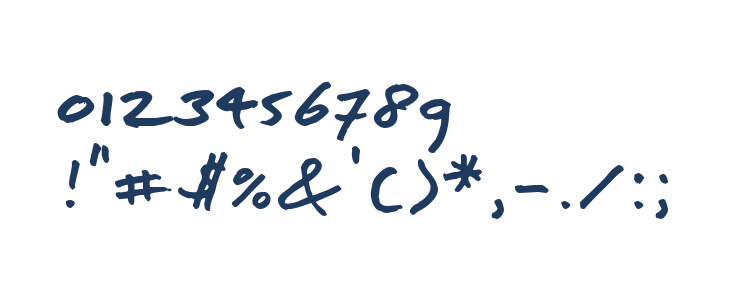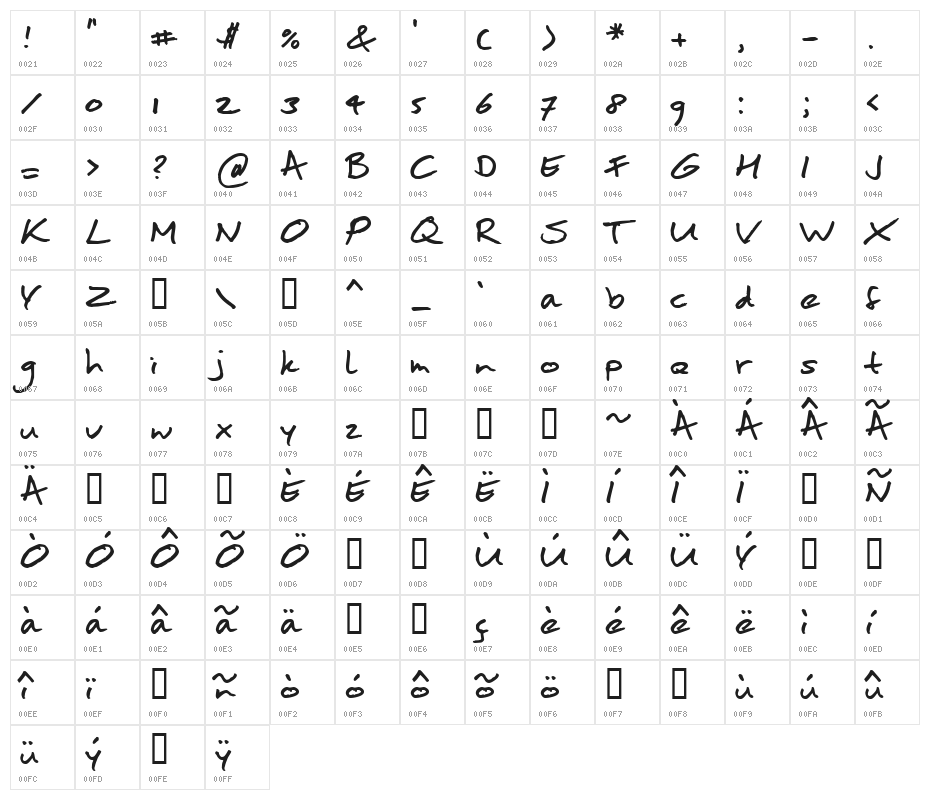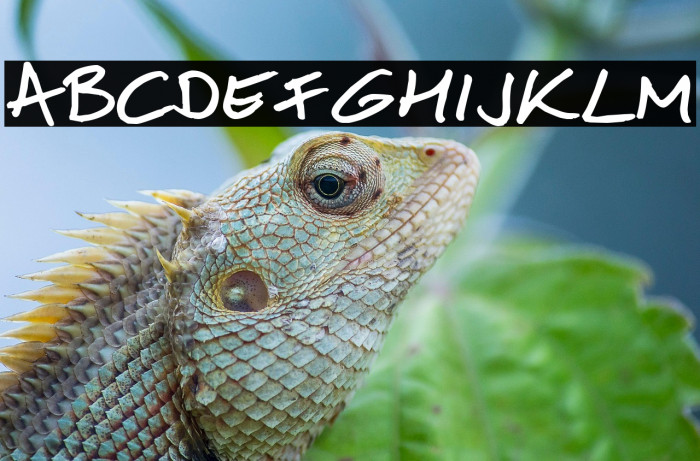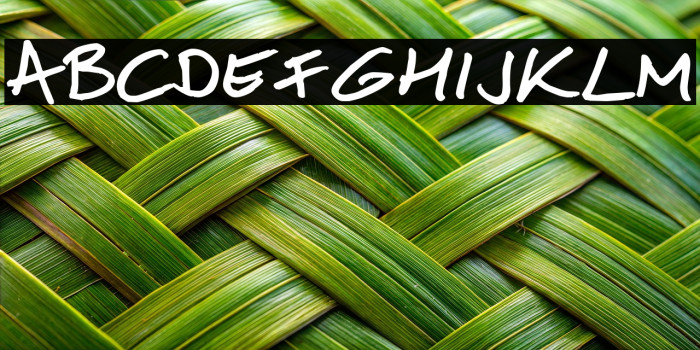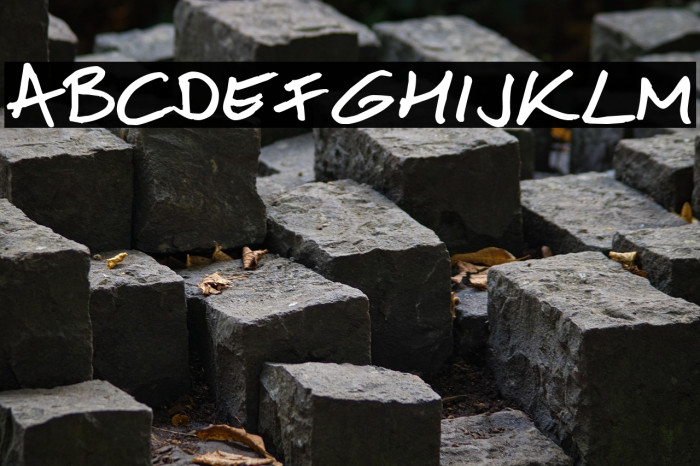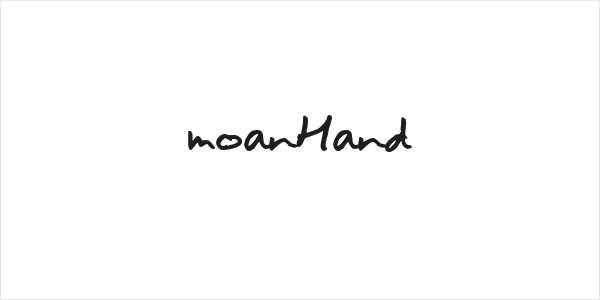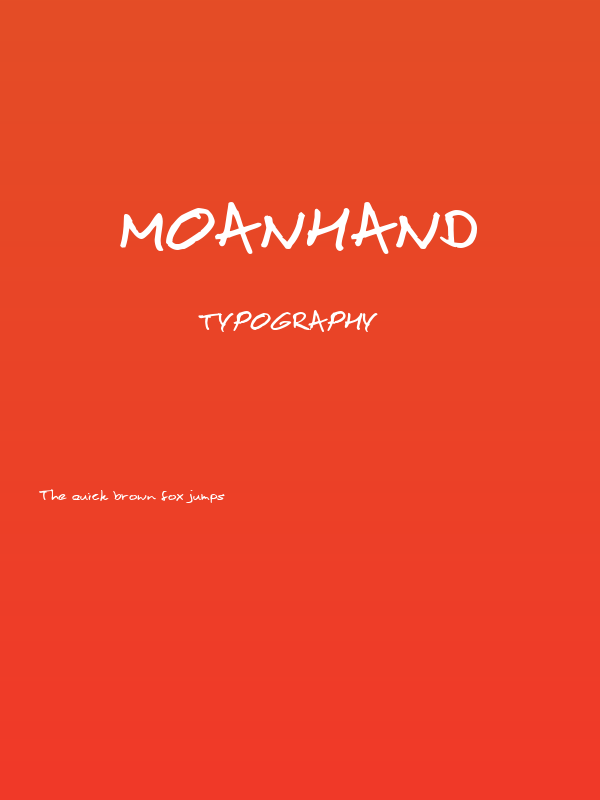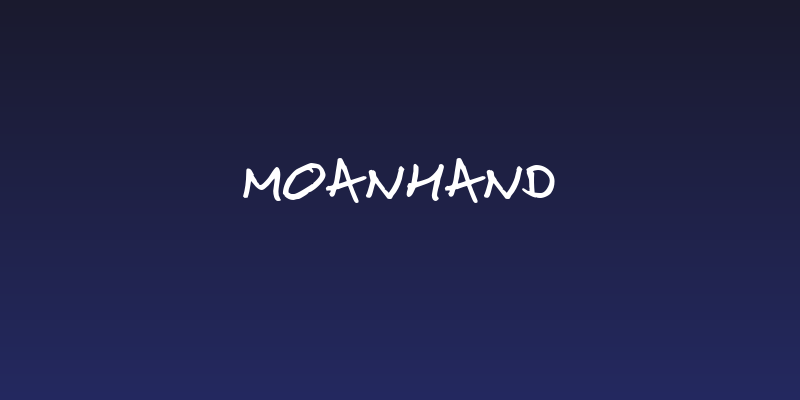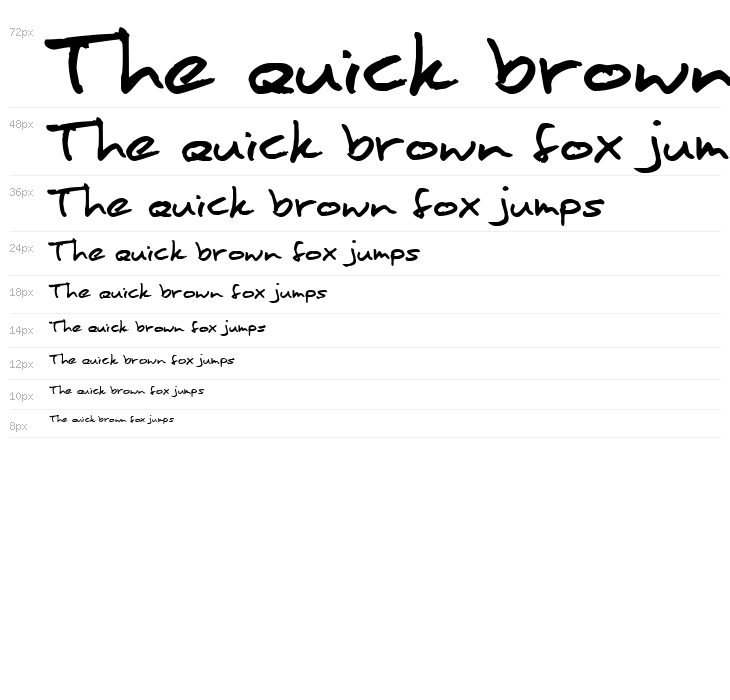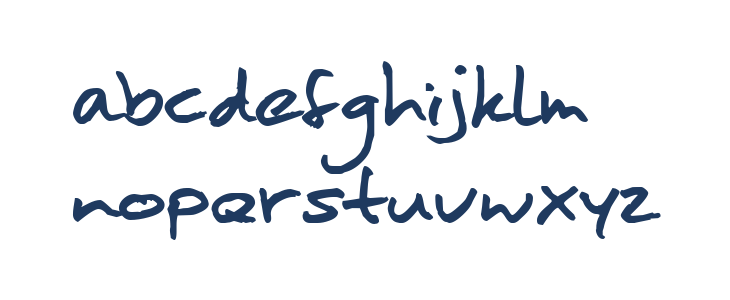
moanHand Font
moanHand Description
This font exudes a casual, handwritten style that mimics the natural flow of penmanship. The letters are slightly irregular, giving it an authentic and personal touch. The strokes are bold and confident, with a slight slant that adds dynamism and movement. The uppercase and lowercase letters maintain a consistent style, while the numbers and special characters integrate seamlessly, enhancing the font's versatility. This font is perfect for projects that require a personal, informal, or creative touch, such as invitations, greeting cards, or artistic branding.
| Overall Style | Casual, Artistic |
| Use Case | Headlines, Logos, Creative projects |
| Proposed Projects | Ideal for invitations, greeting cards, artistic branding, and creative projects. |